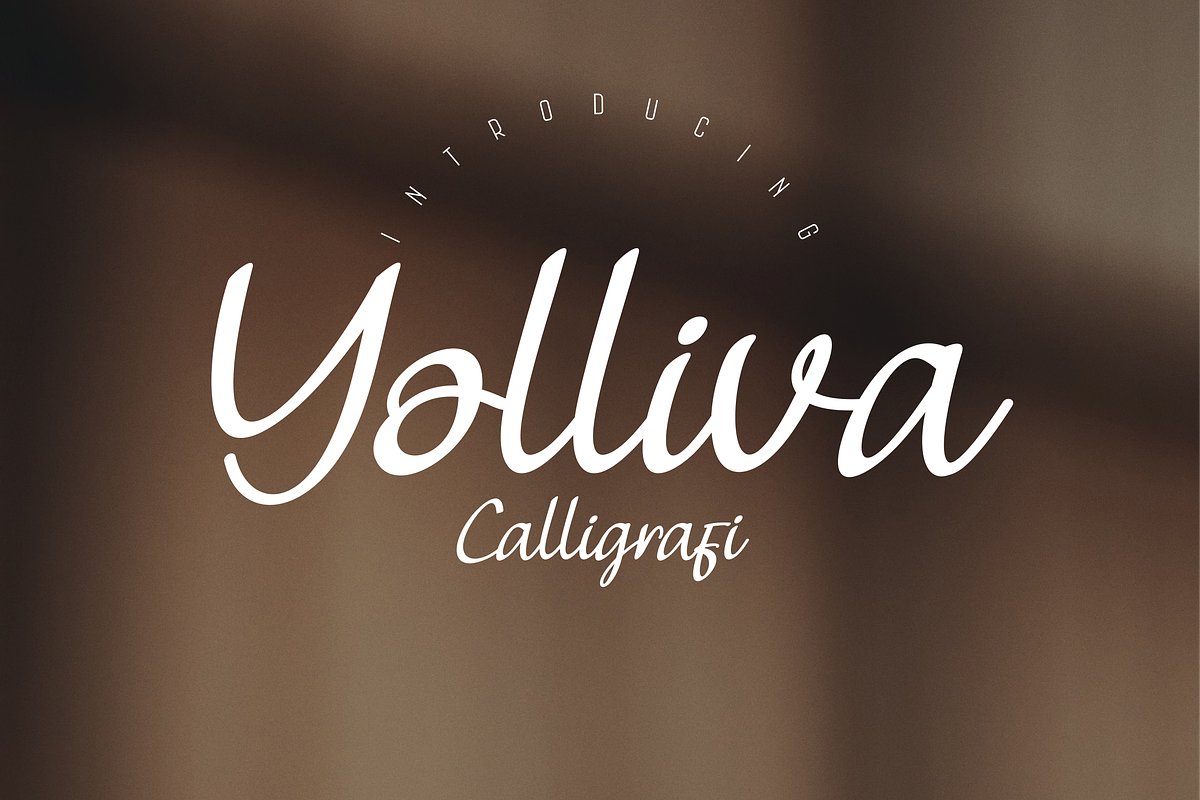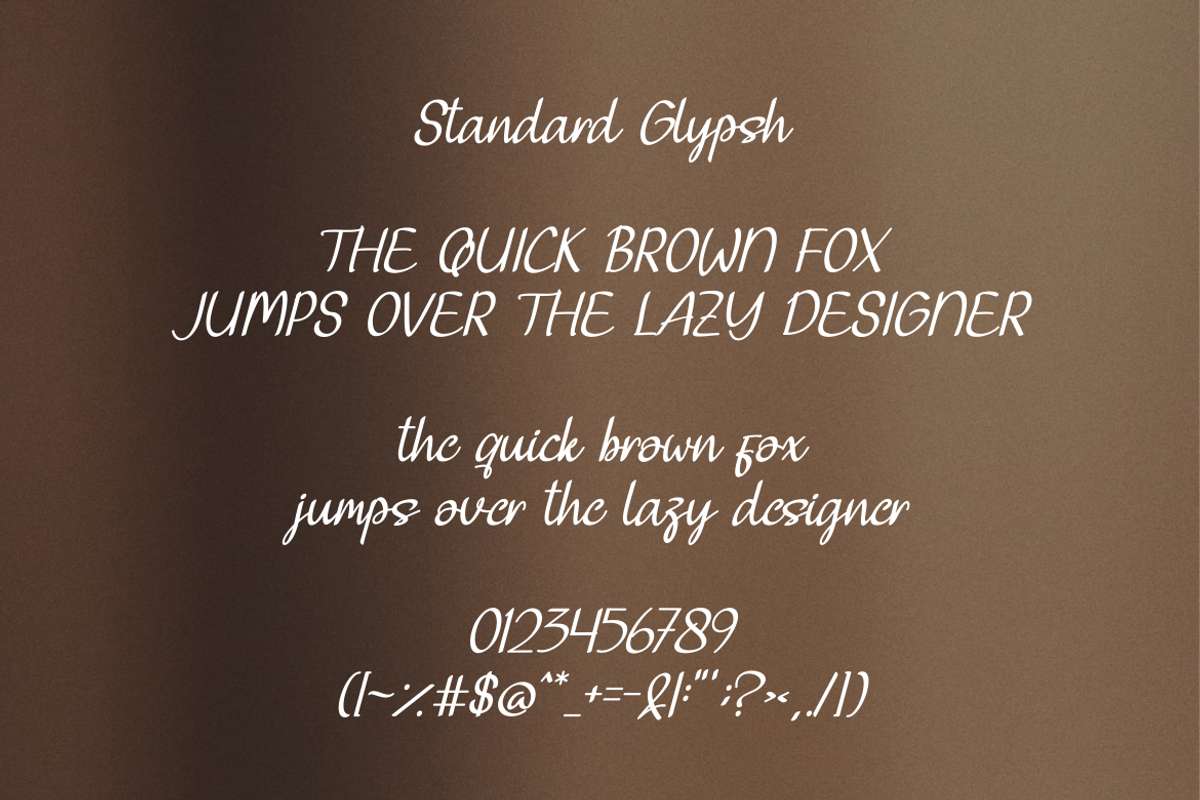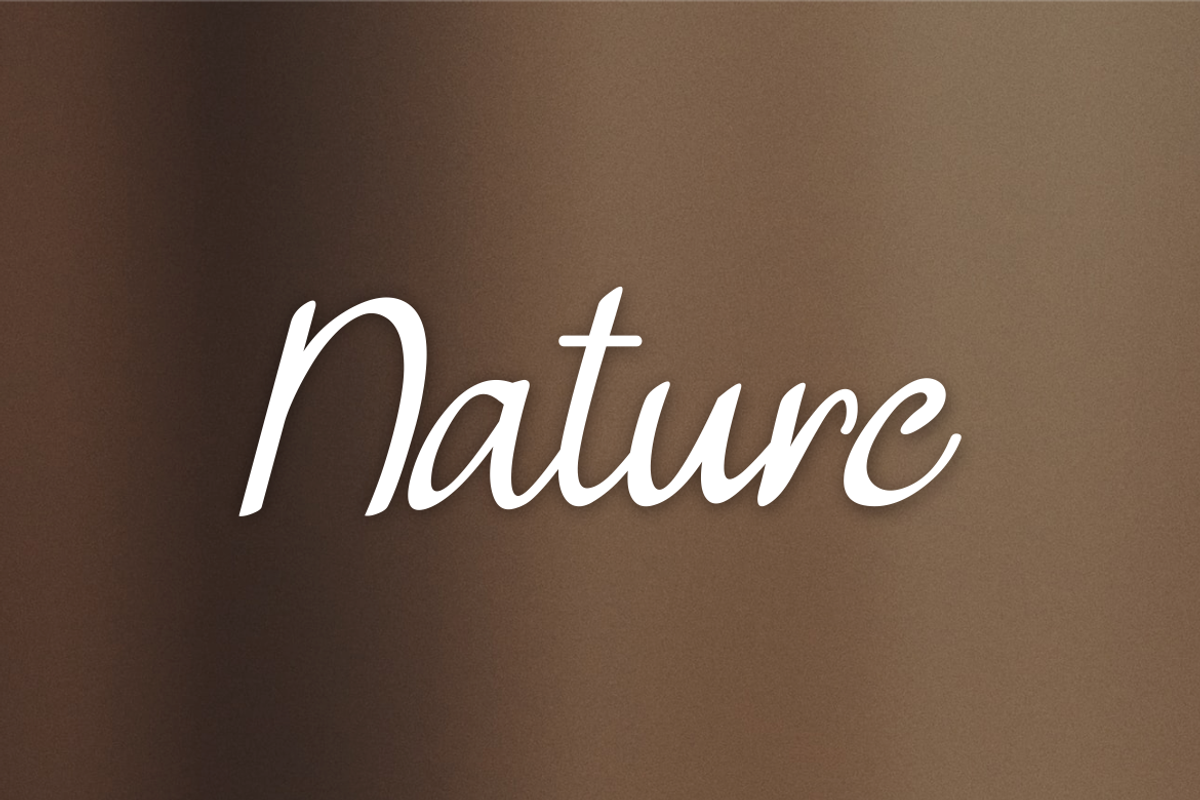
Yolliva Calligrafi Font
Yolliva Calligrafi Font It has a elegant, classy look and modern. It’s a great font for fashion, apparel projects, signature, album cover,logo, branding, magazine, social media, & advertisements, but also works great for other projects.